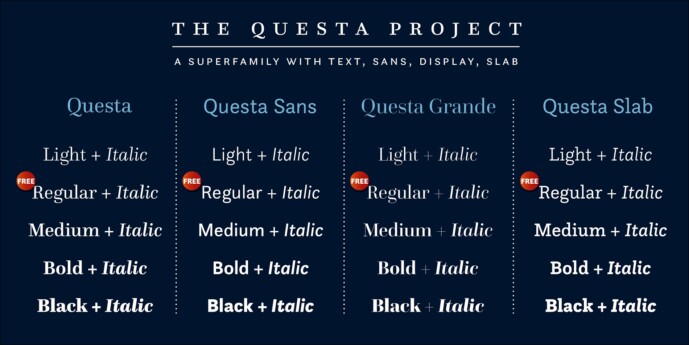
Questa Project Font
Designer: Jos Buivenga and Martin Majoor
Questa Project Font – is a superfamily of fonts, including a serif, a sans and a display version. The inclusion of small caps, four glyphs, ligatures and extended language support makes Questa a truly useful tool.
Questa Project is a collaborative type design project by Jos Buivenga (exljbris) and Martin Majoor.